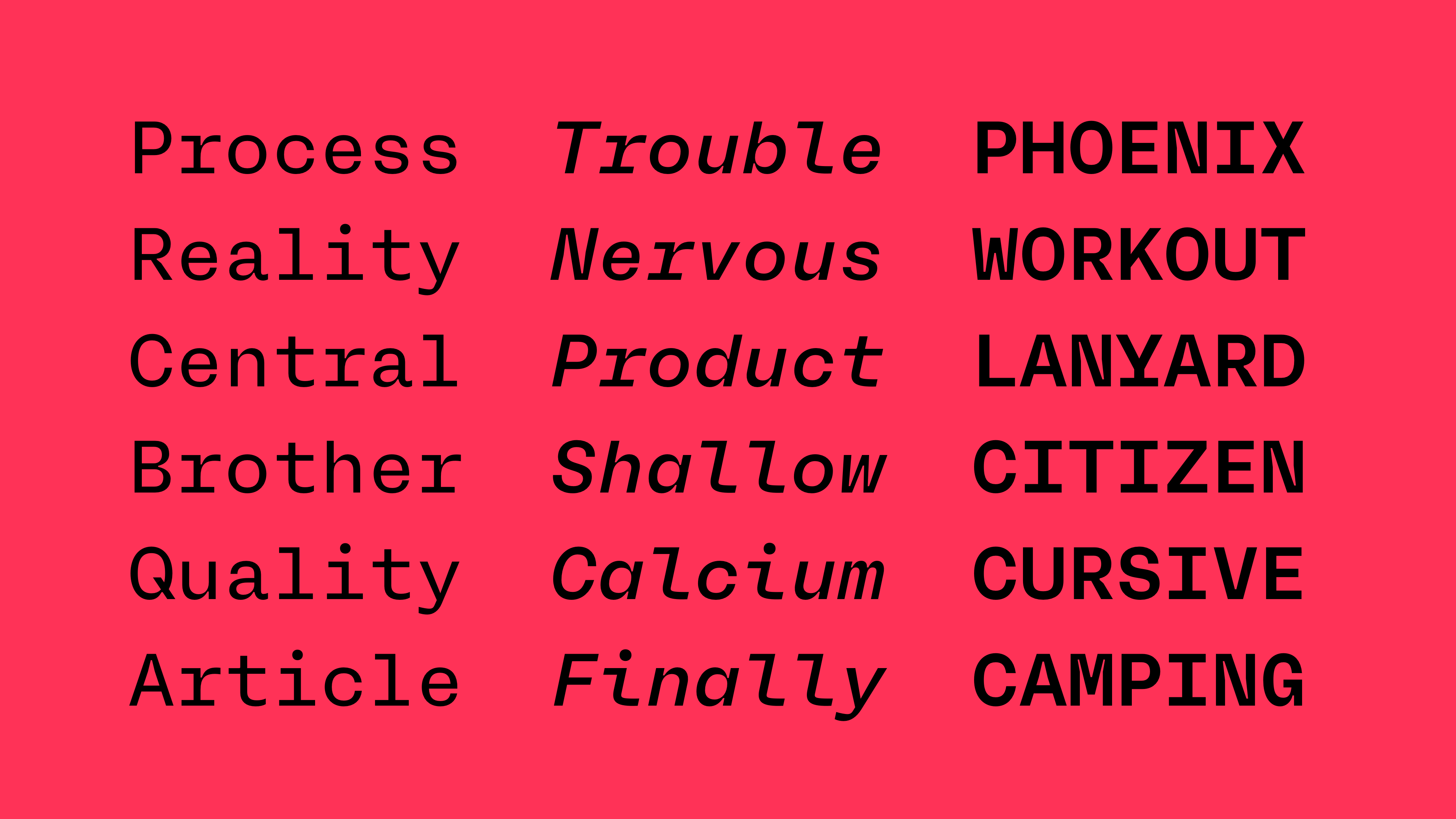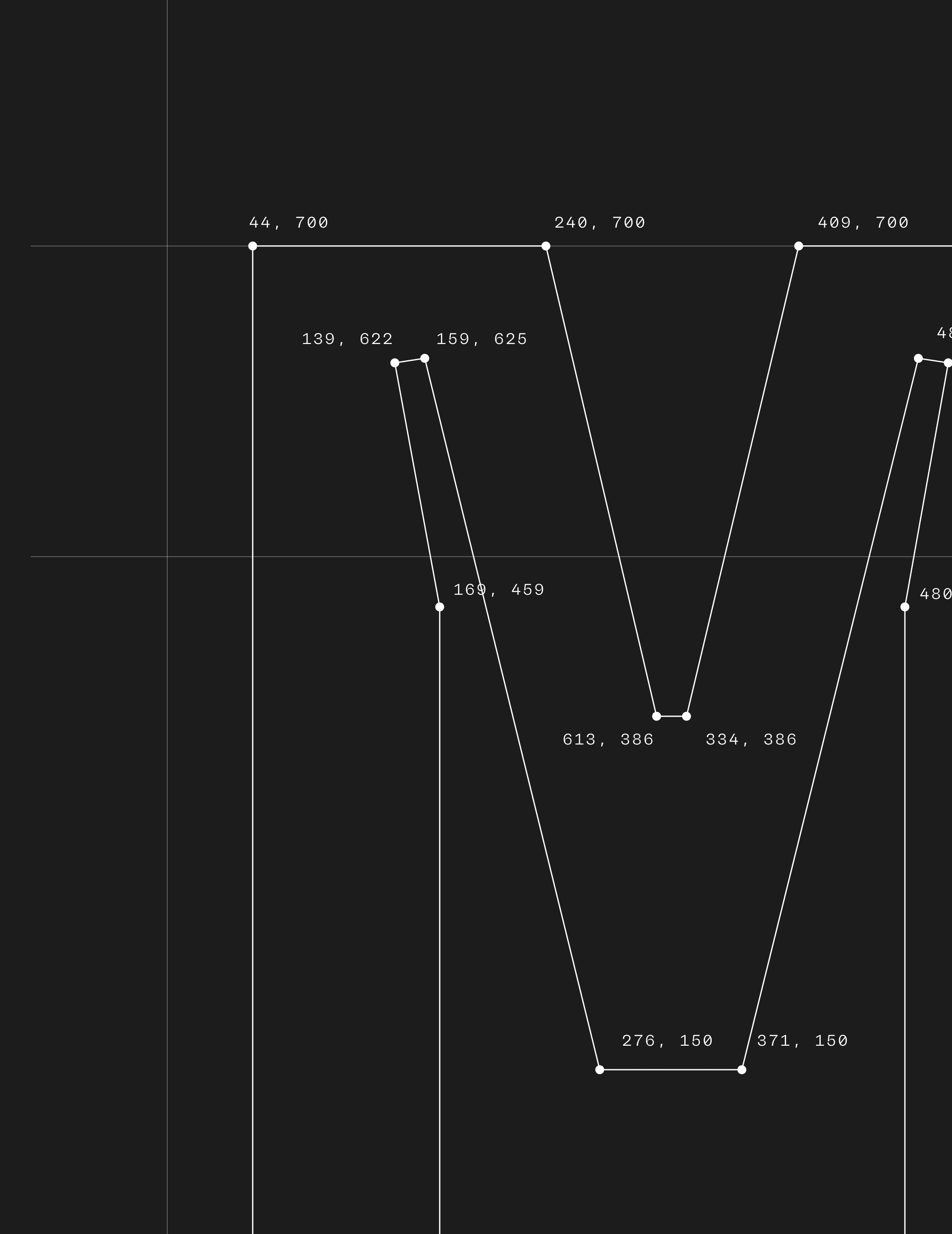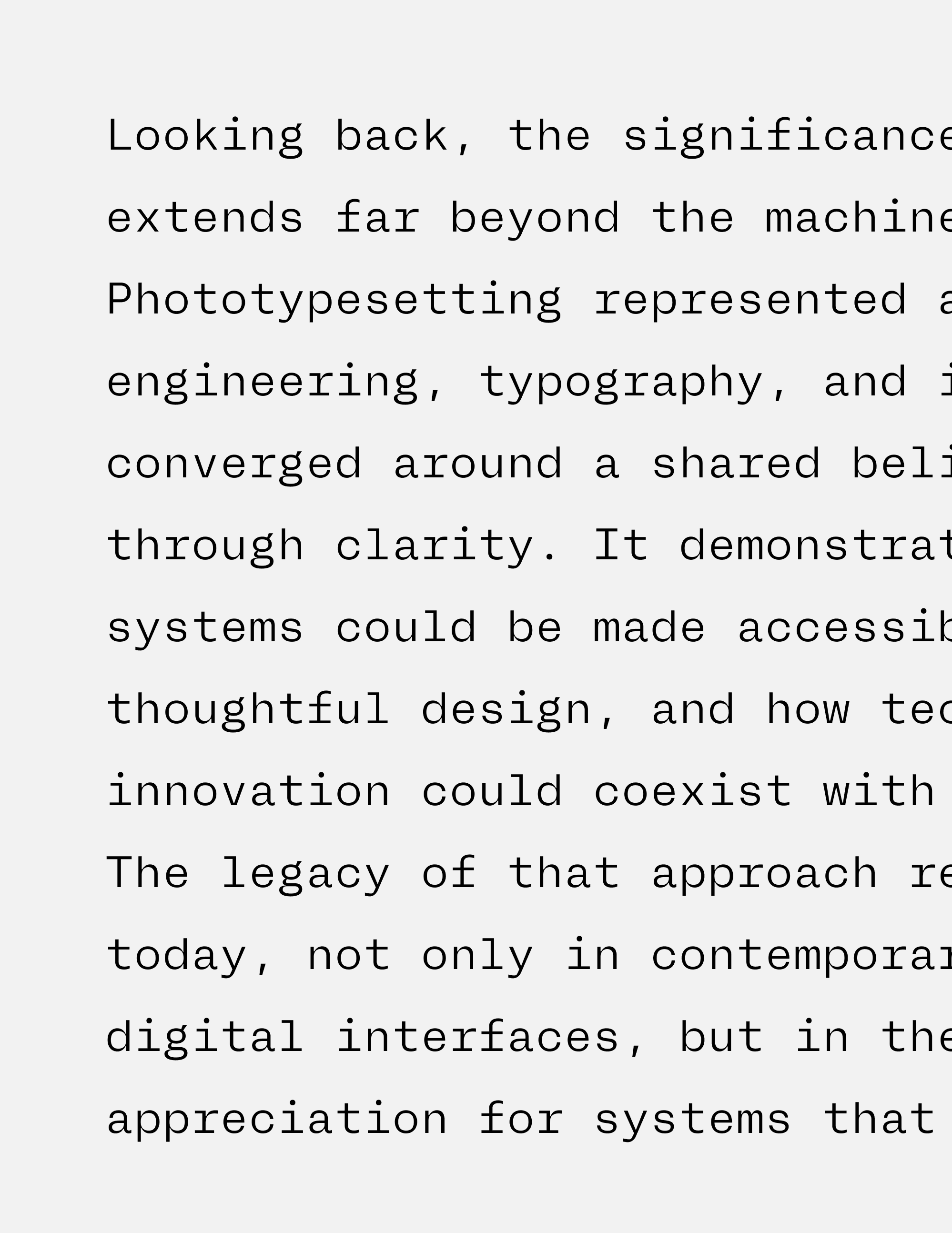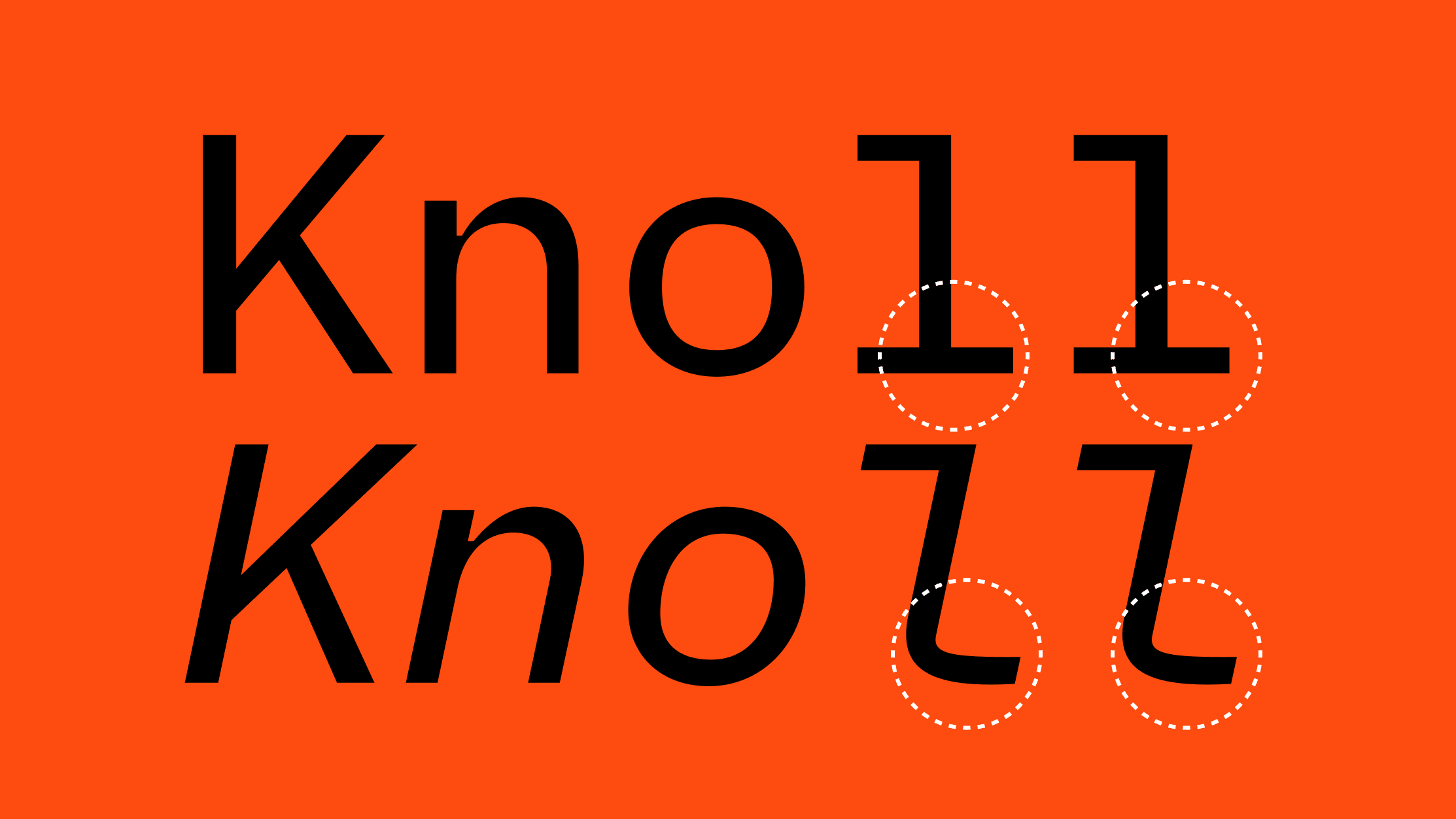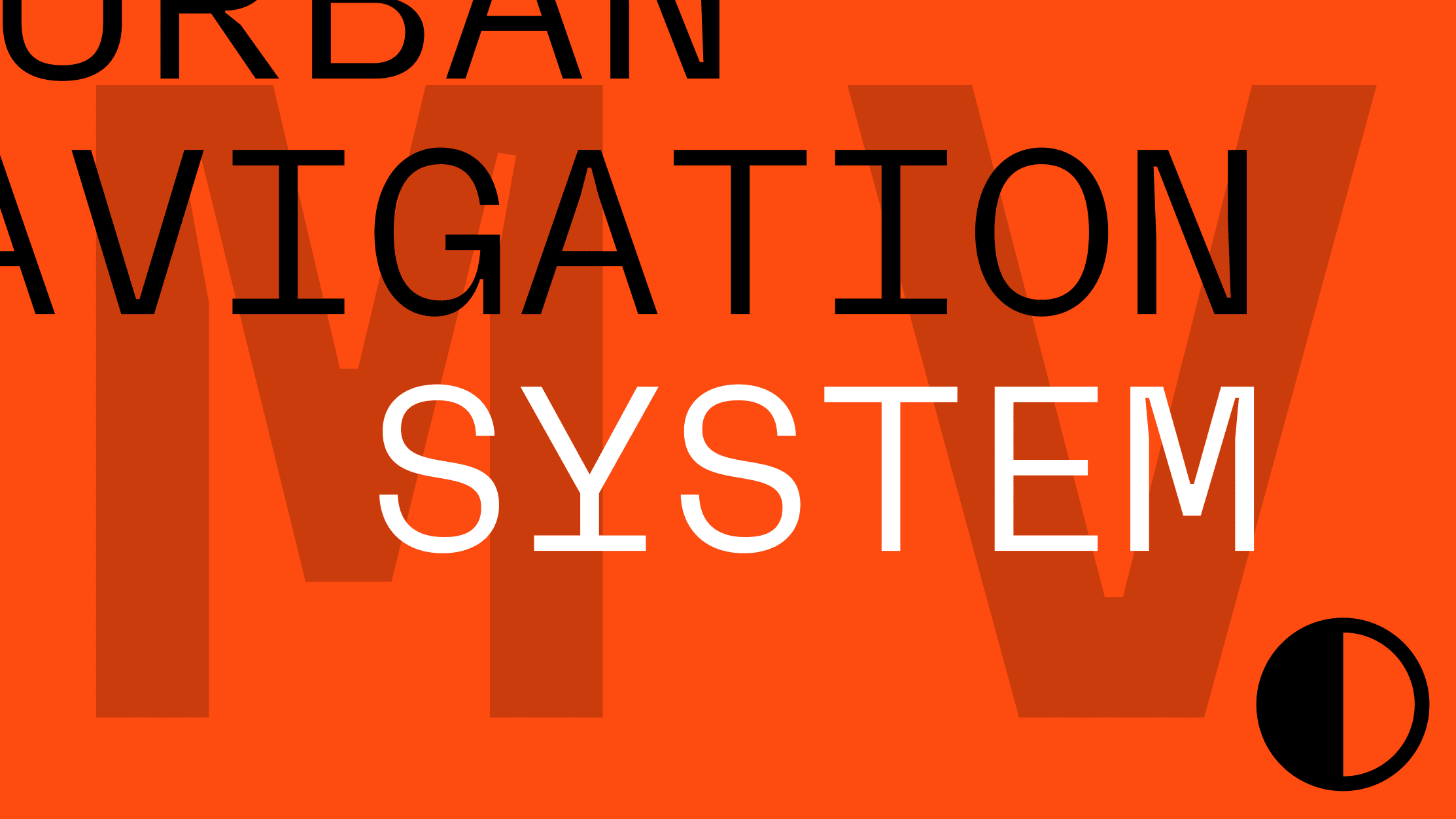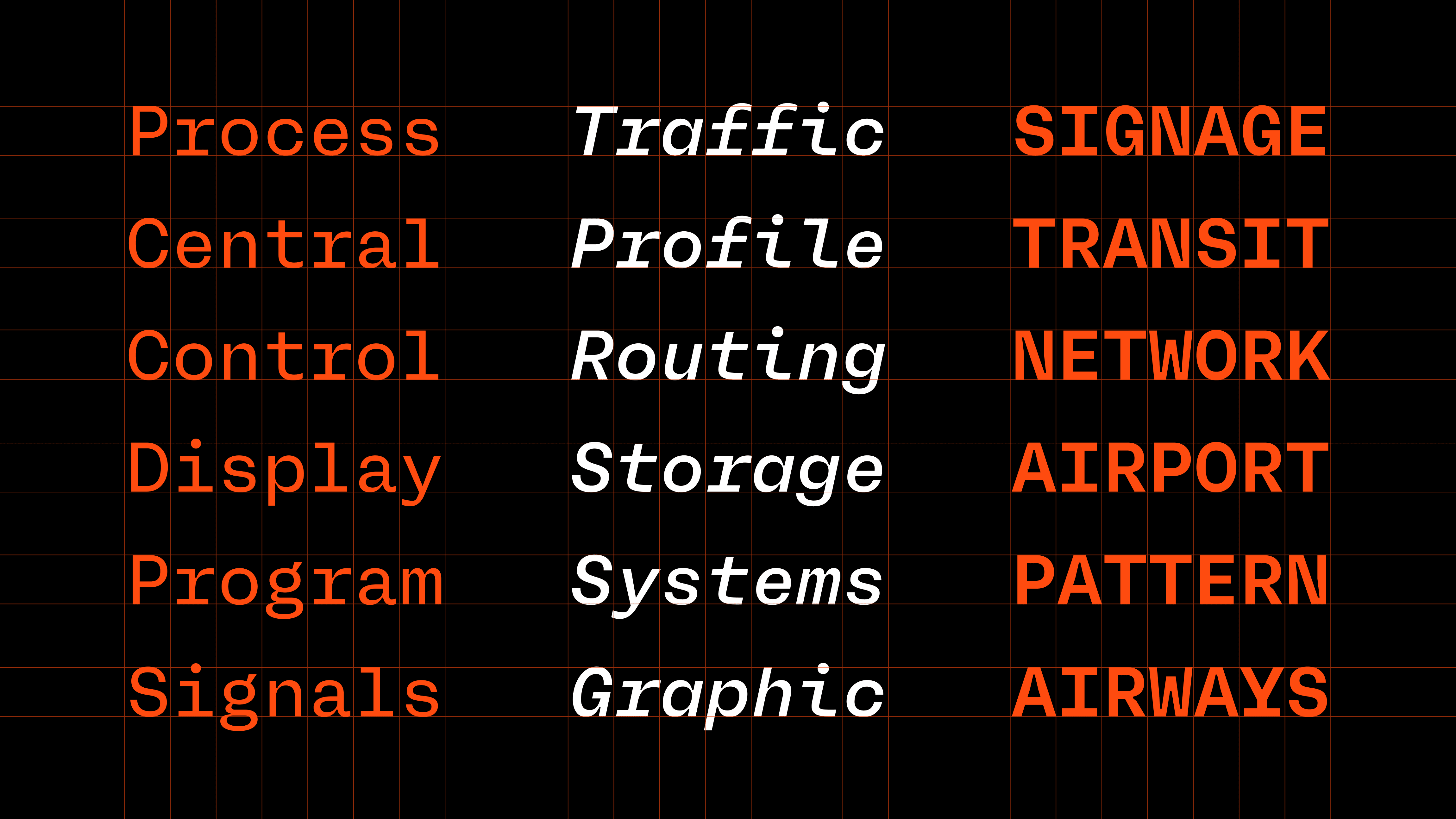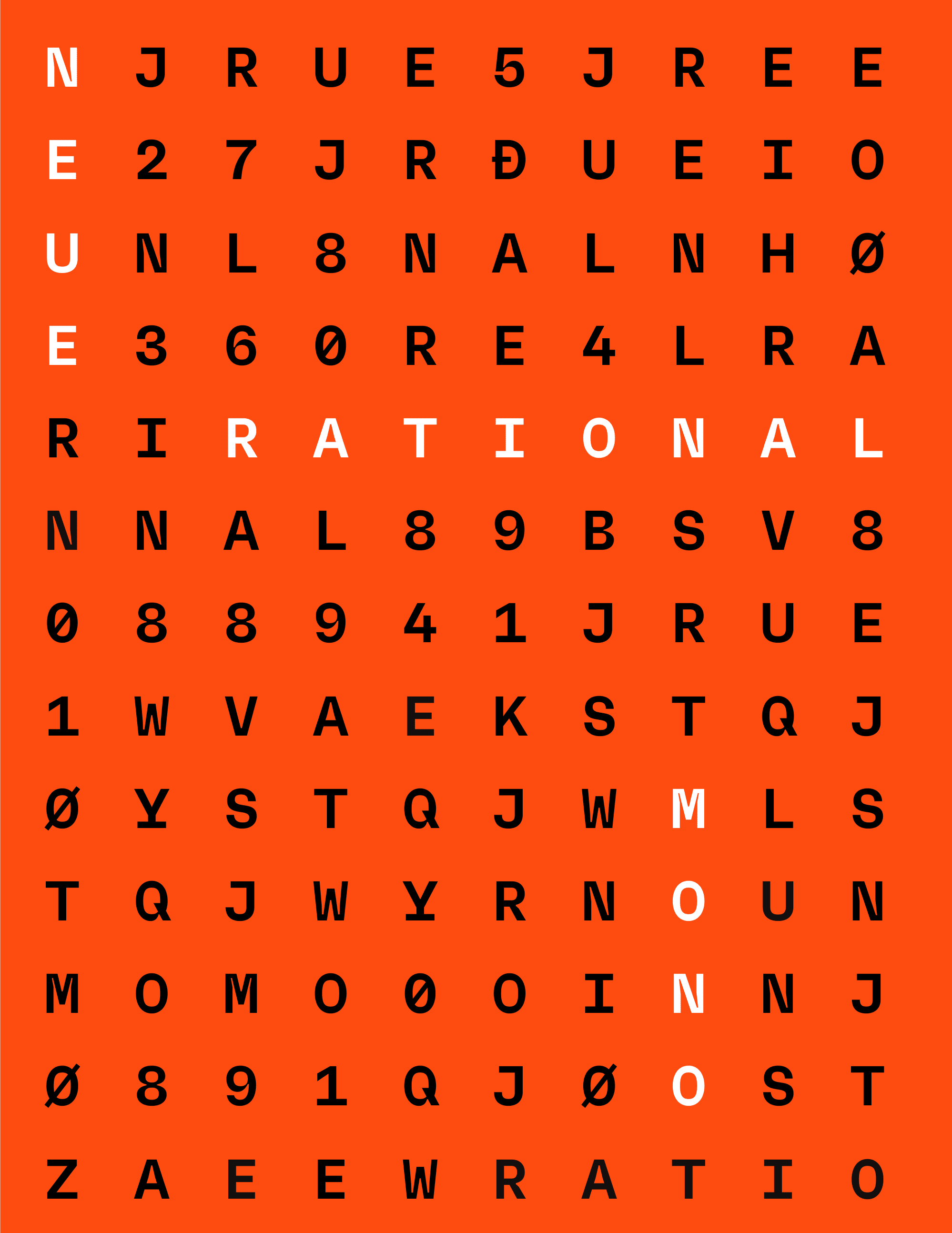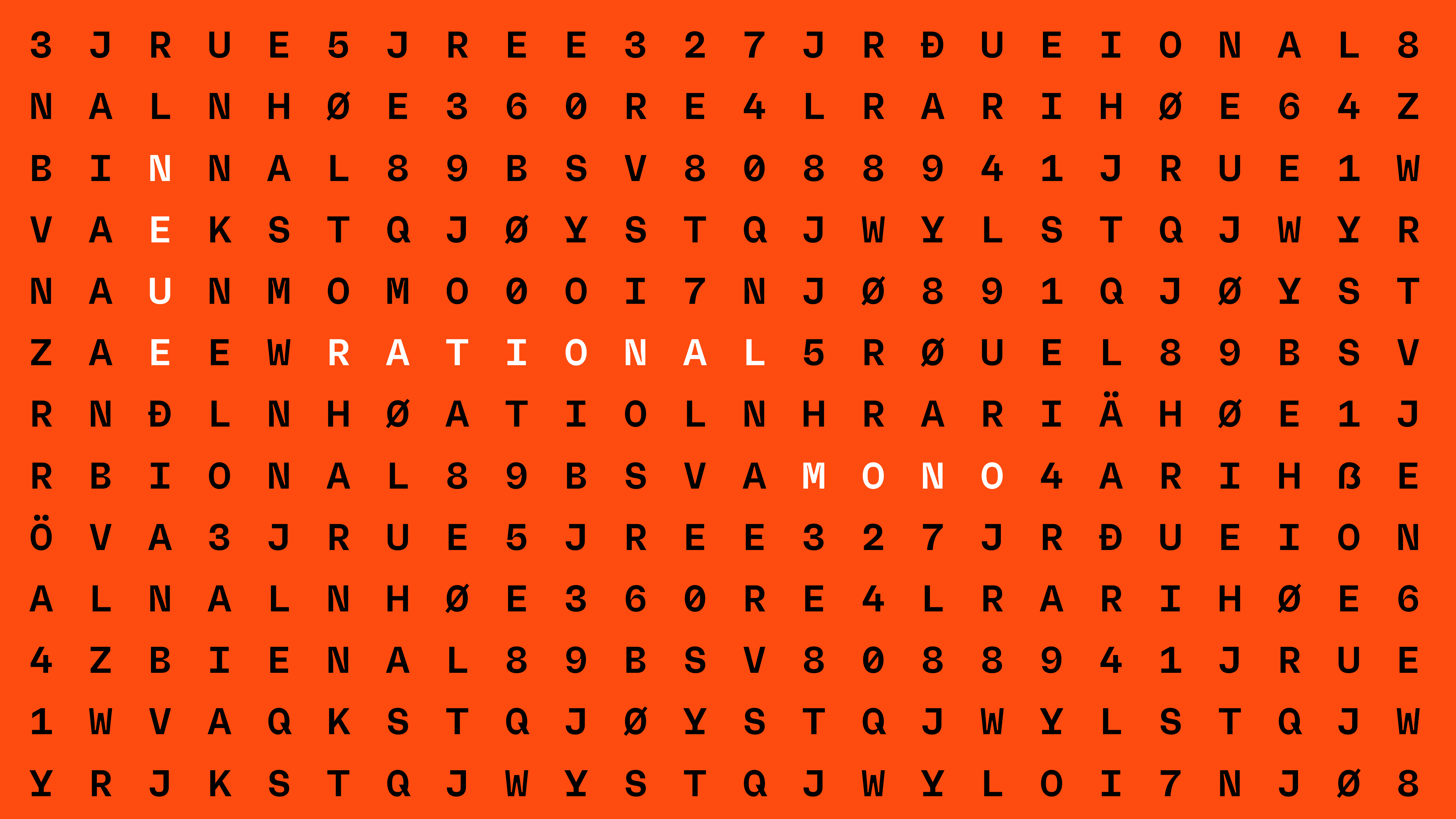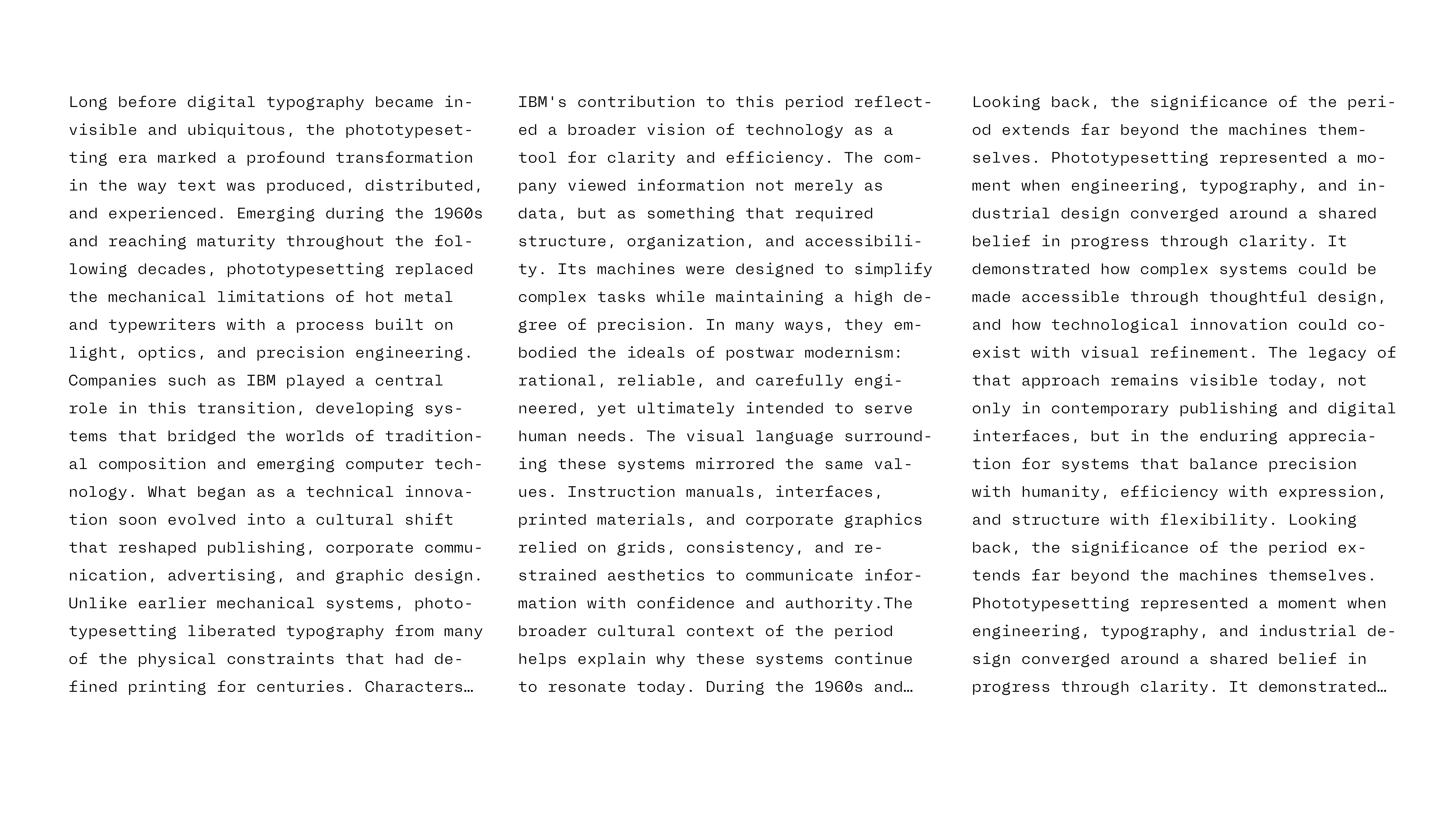
Neue Rational Mono
Neue Rational Mono brings fixed-width precision to the neo-grotesque tradition. Designed for clarity, consistency, and information-rich environments. Also available in Normal, Narrow, Condensed, and Mix.